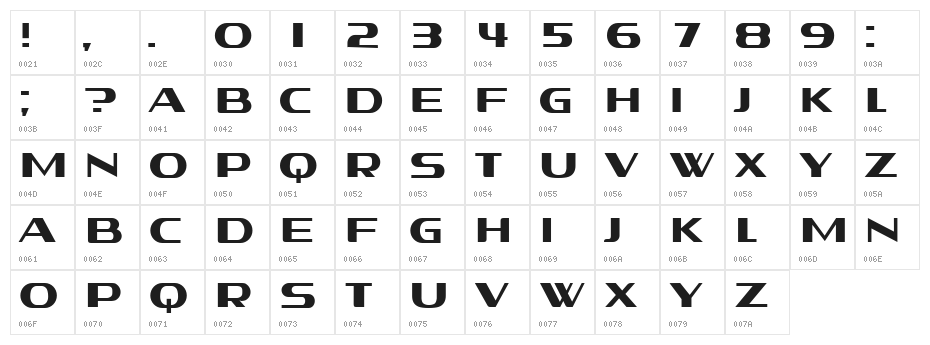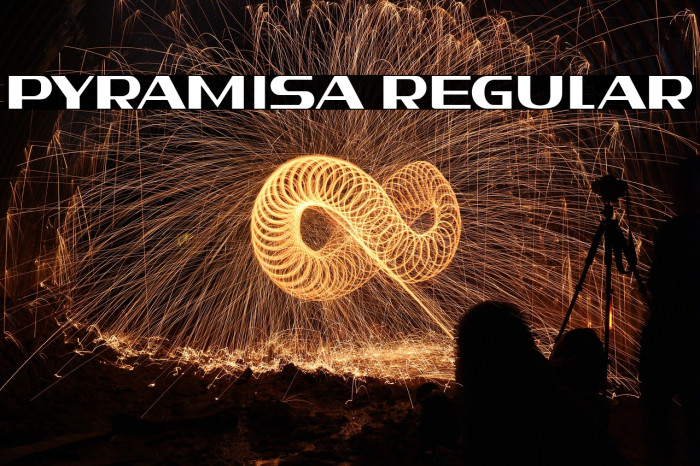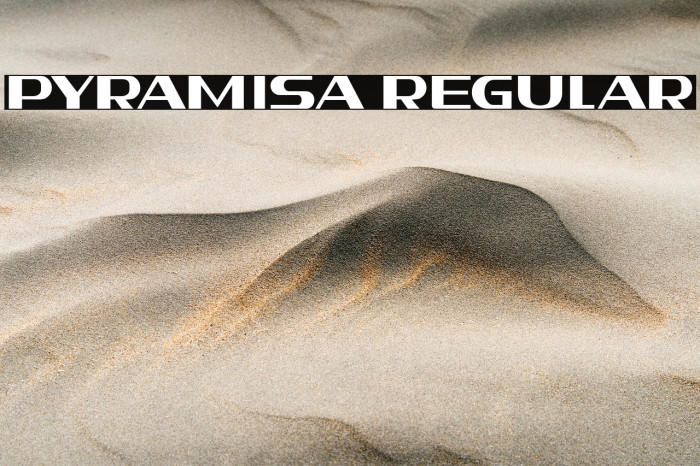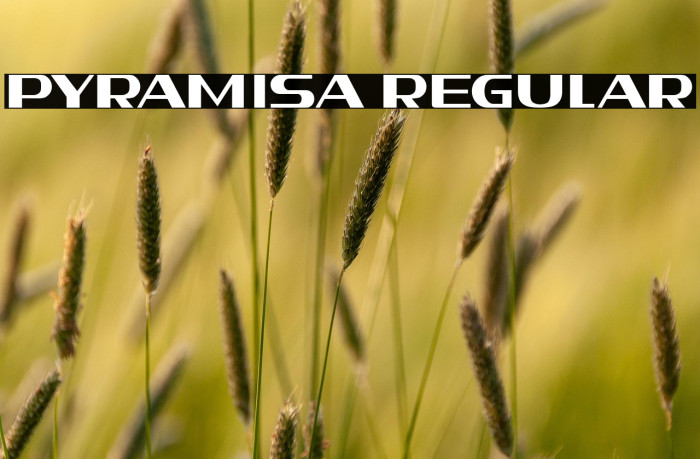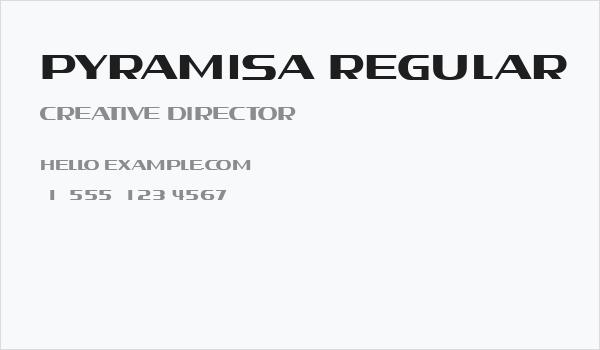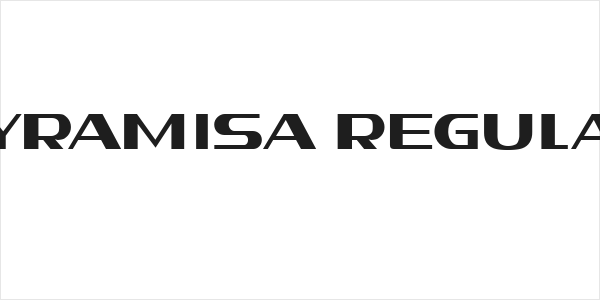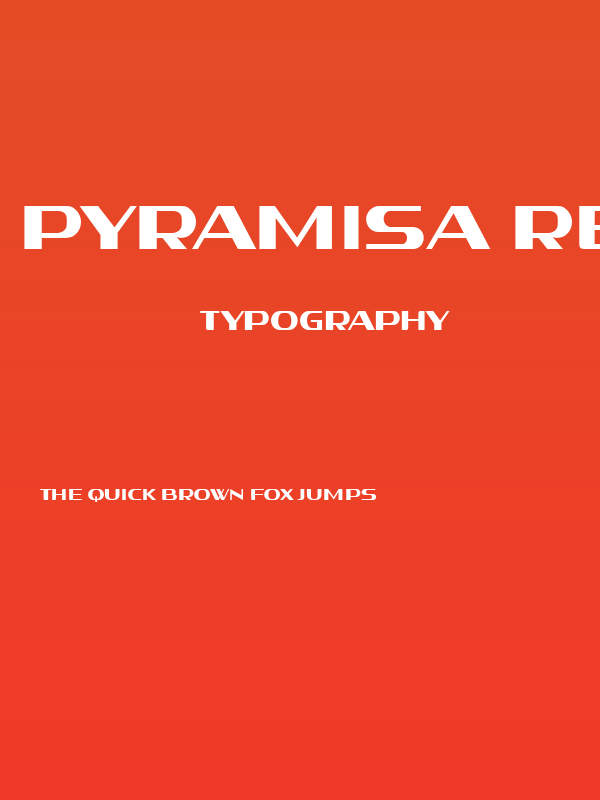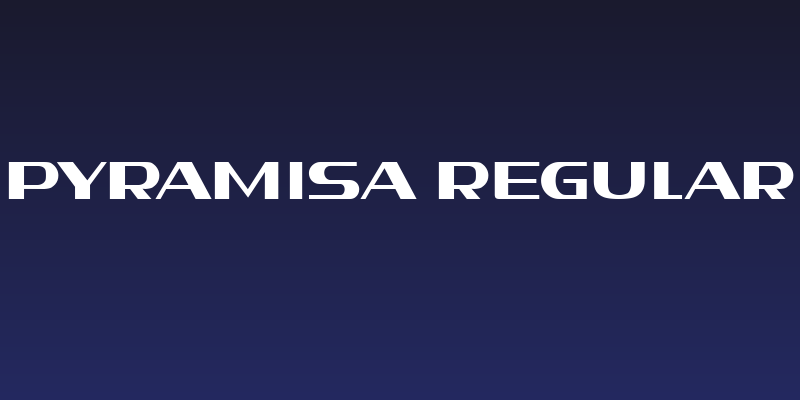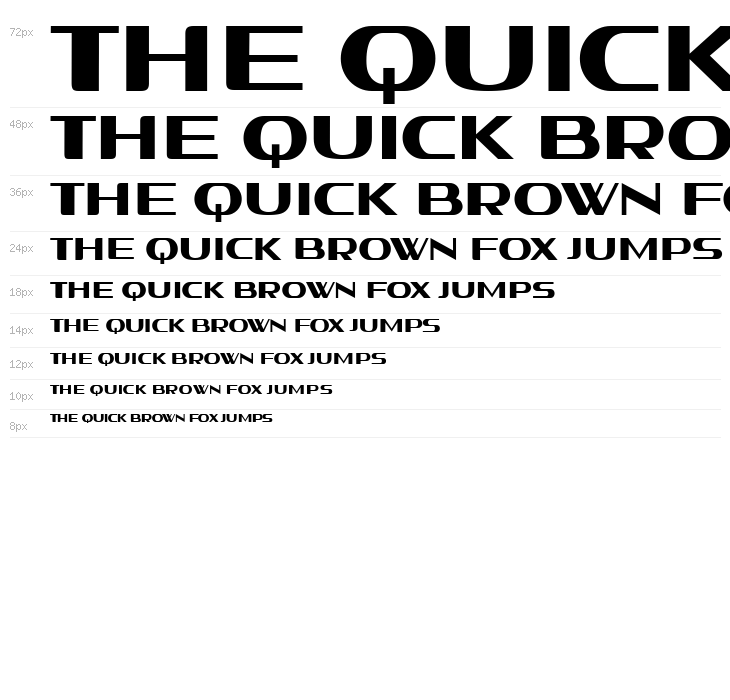
Pyramisa Regular Font
Pyramisa Regular Description
This font features a bold and futuristic design with sharp, angular lines and a geometric structure. The uppercase letters are distinct with a strong presence, while the lowercase letters maintain a consistent style that complements the uppercase. The numerals are uniquely styled, adding to the modern aesthetic. Special characters are creatively designed, enhancing the overall futuristic feel. The font's design is suitable for projects that require a modern and bold statement.
| Proposed Projects | Ideal for technology branding, sci-fi themed projects, modern posters, and innovative product packaging. |